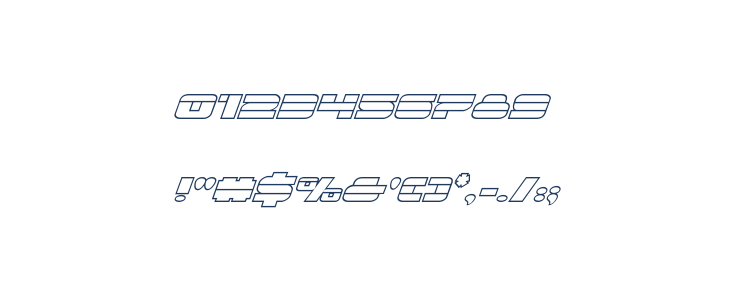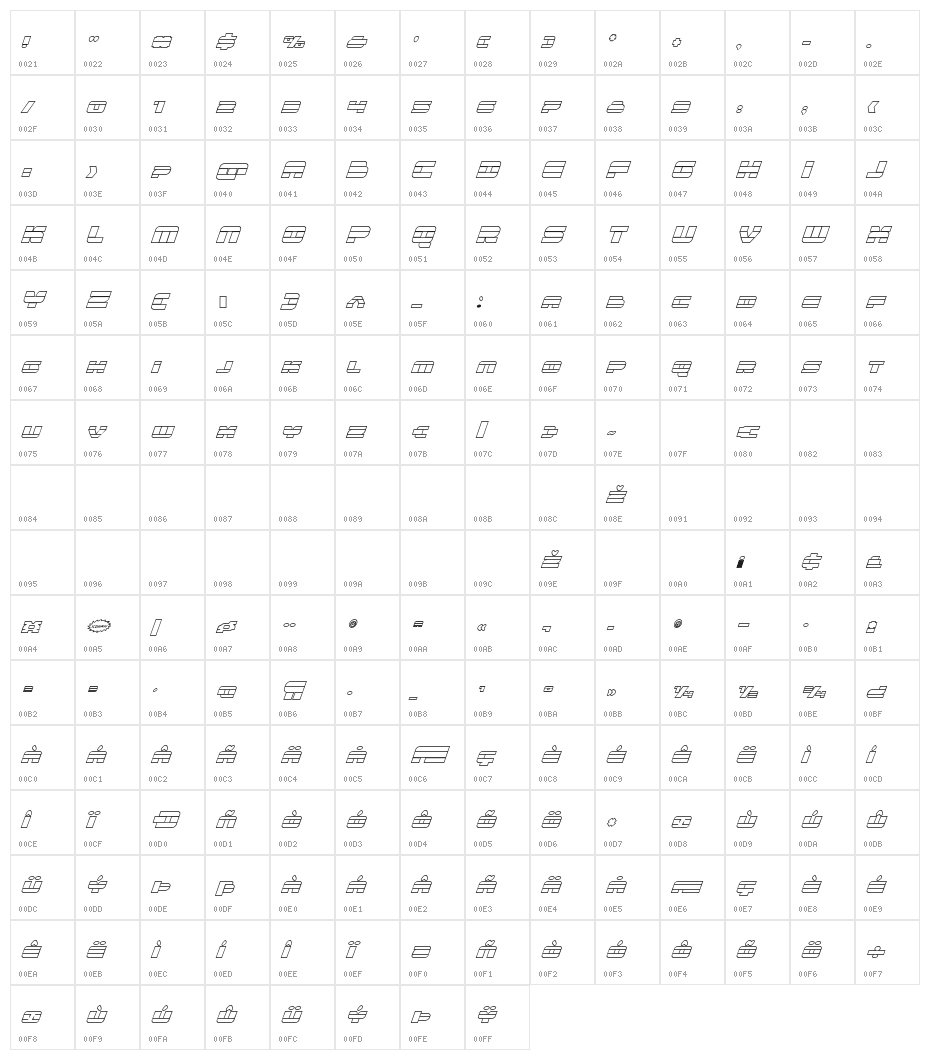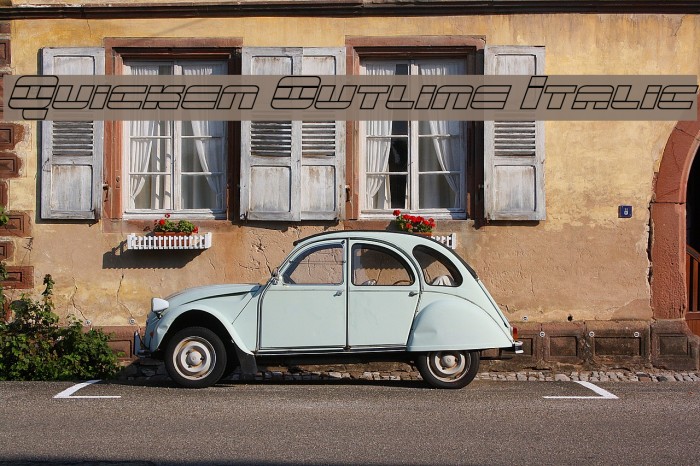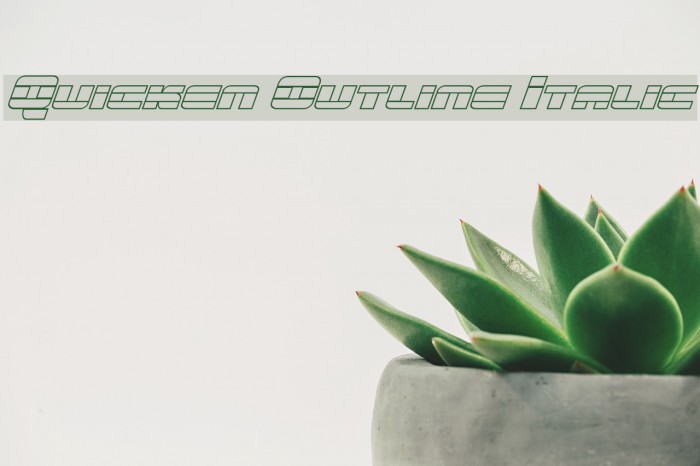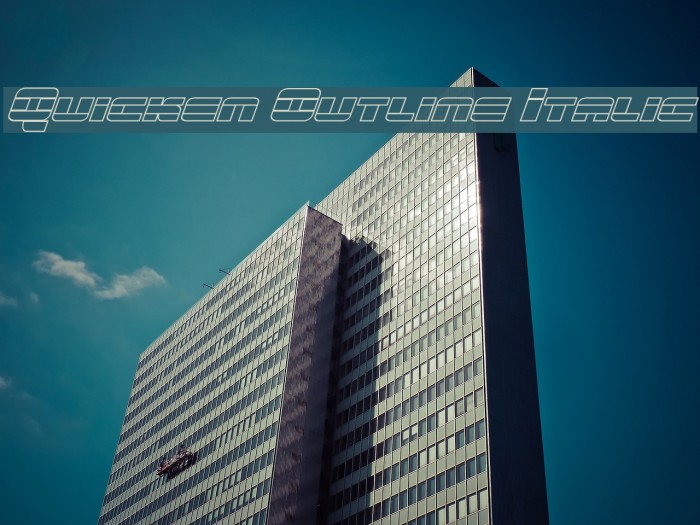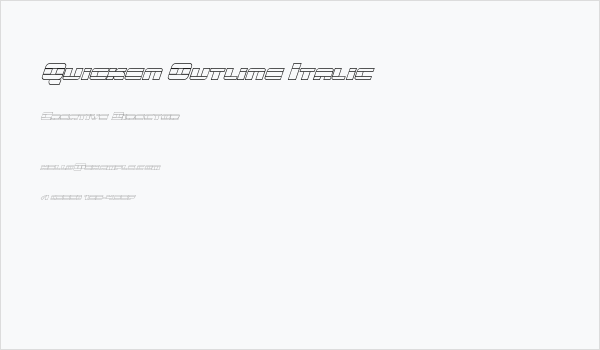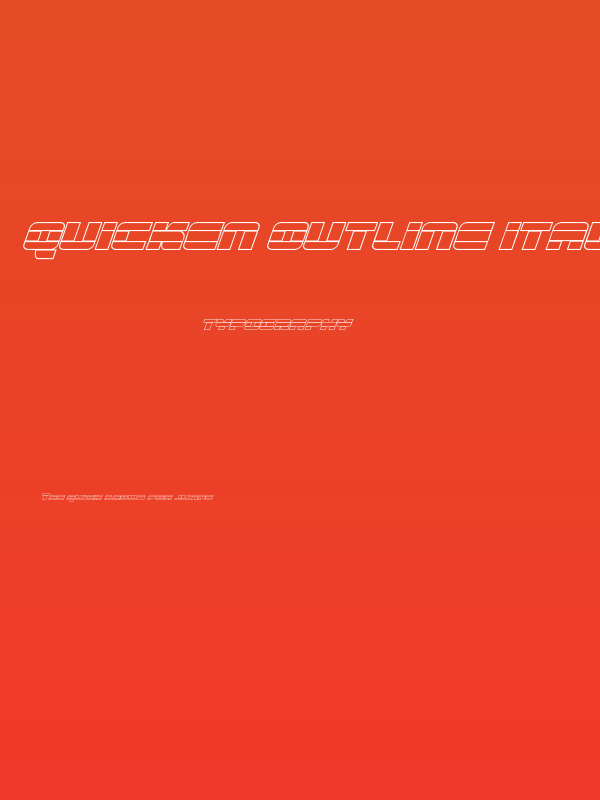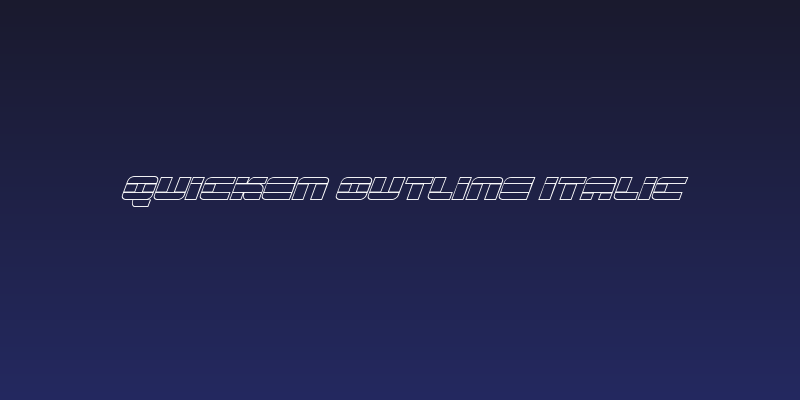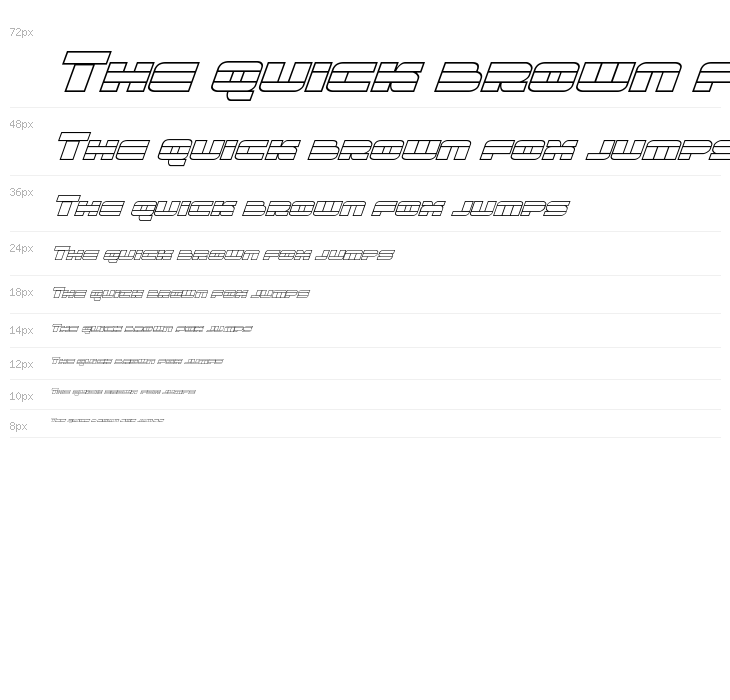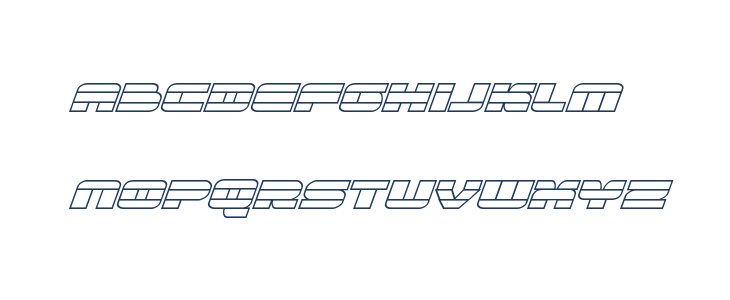
Quicken Outline Italic Font
Quicken Outline Italic Description
This font features a modern, outlined style with a distinct italic slant, giving it a dynamic and futuristic appearance. The characters are constructed with clean, geometric lines, creating a sense of movement and speed. The uppercase and lowercase letters maintain a consistent height, while the numerals and special characters are designed to complement the overall aesthetic. The outlined nature of the font allows for creative use of color and layering, making it versatile for various design applications.